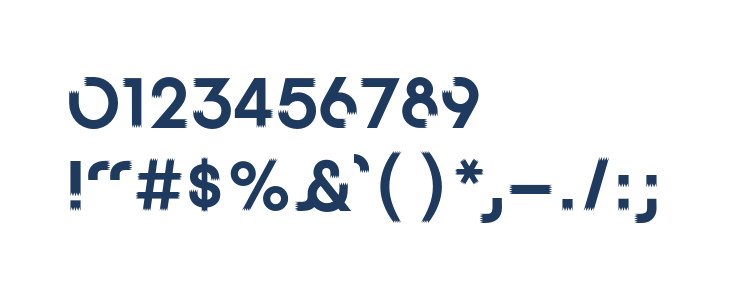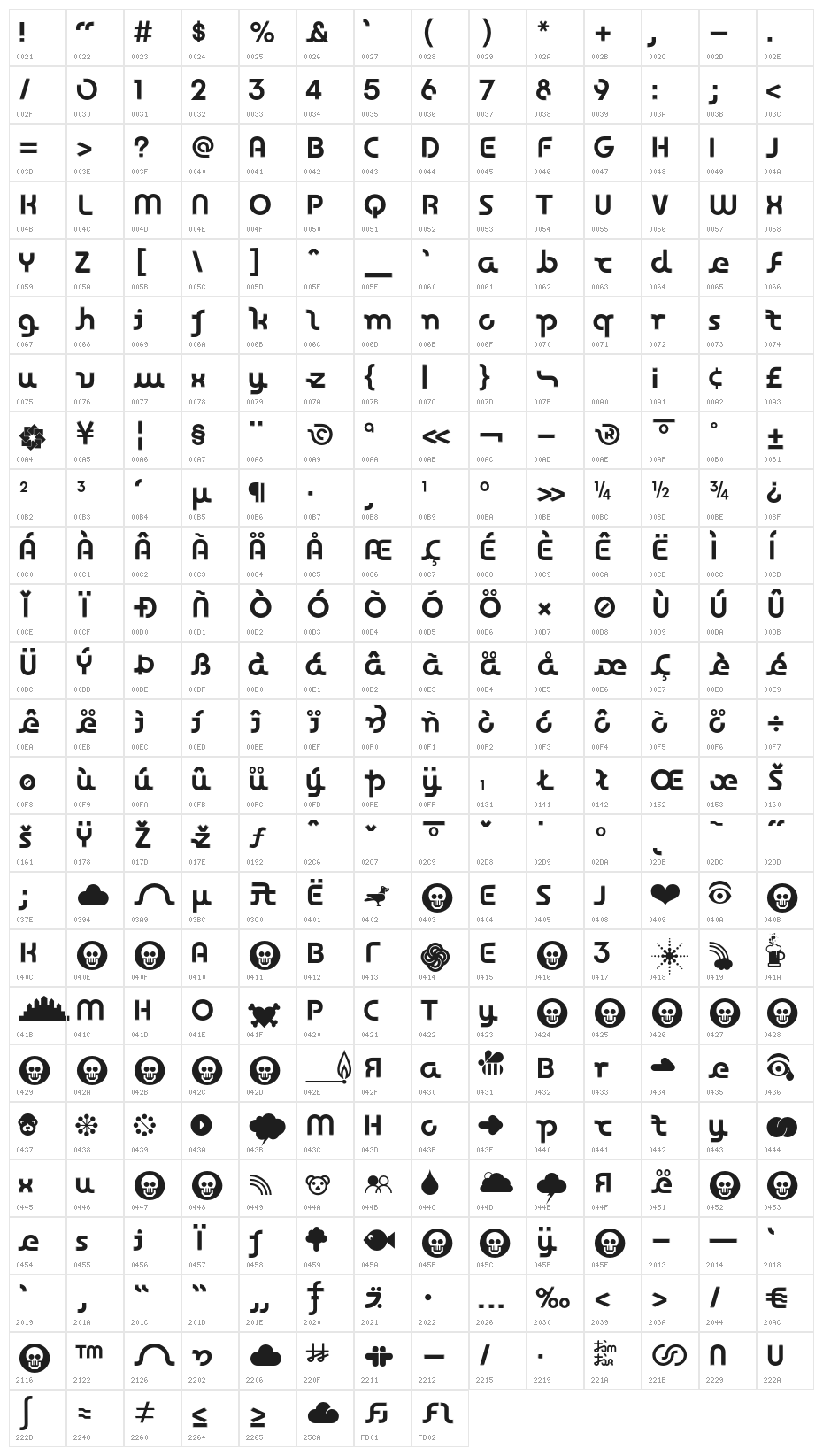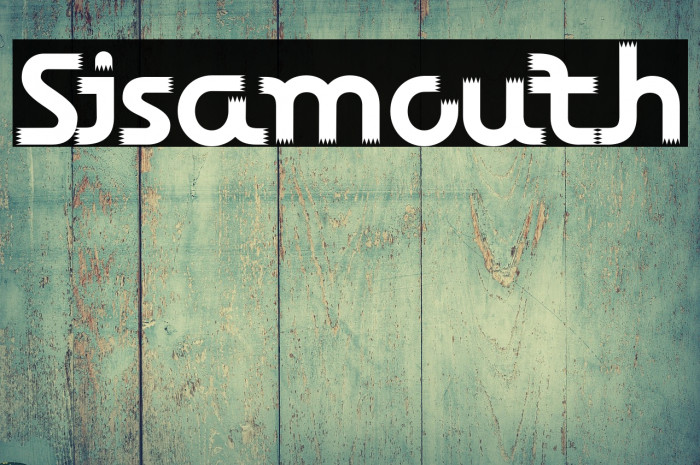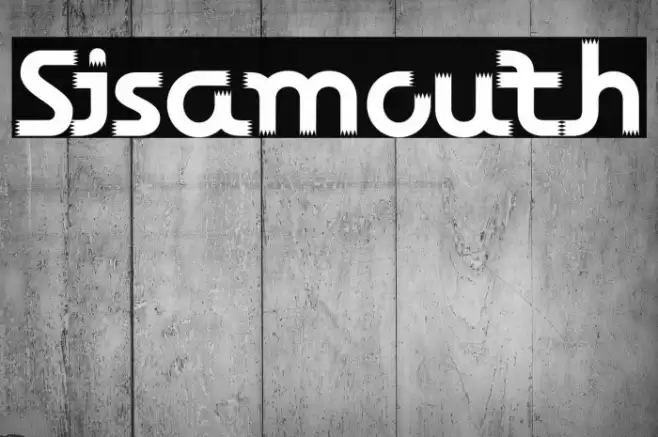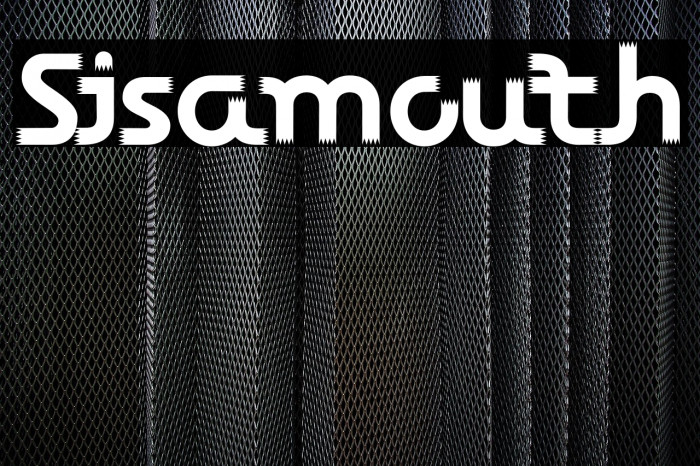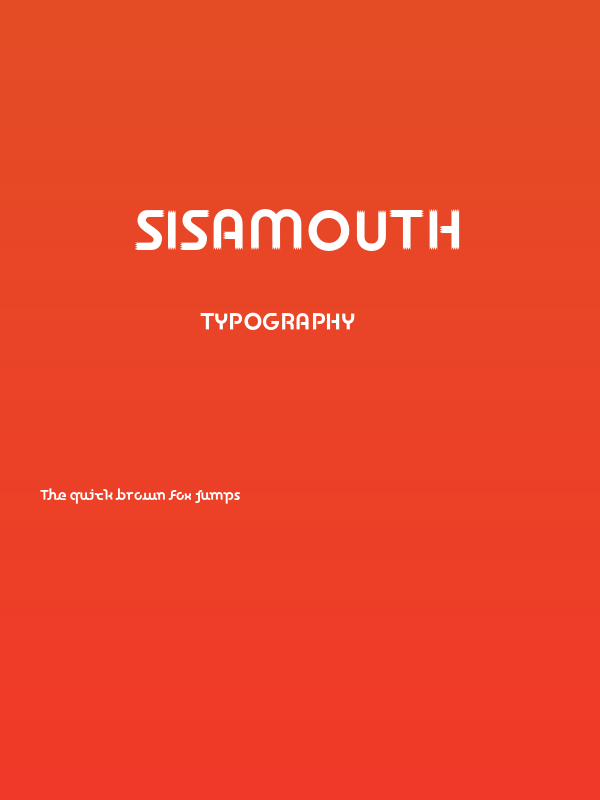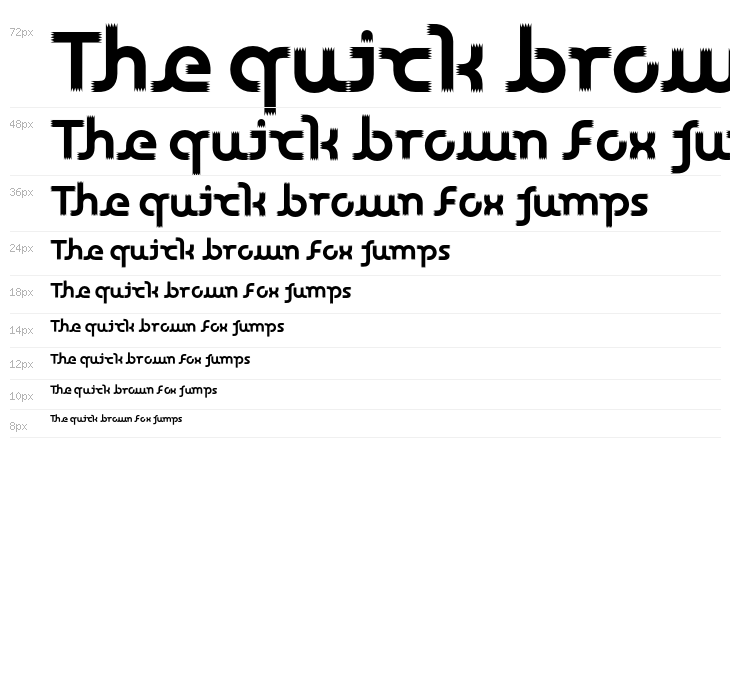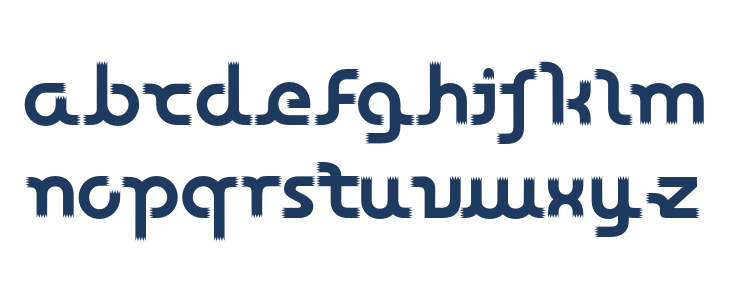
Sisamouth Font
Sisamouth Description
This font features a unique and bold design with a distinct jagged edge effect on each character, giving it a dynamic and energetic appearance. The uppercase and lowercase letters maintain a consistent style, with rounded forms and sharp, serrated edges that create a striking visual impact. The numerals follow the same design principles, ensuring uniformity across all characters. Special characters are also included, each with the same jagged detailing, making this font versatile for various applications. The overall design is modern and eye-catching, suitable for projects that require a bold statement.
| Proposed Projects | Ideal for posters, album covers, branding projects, and any design that requires a bold, attention-grabbing typeface. |